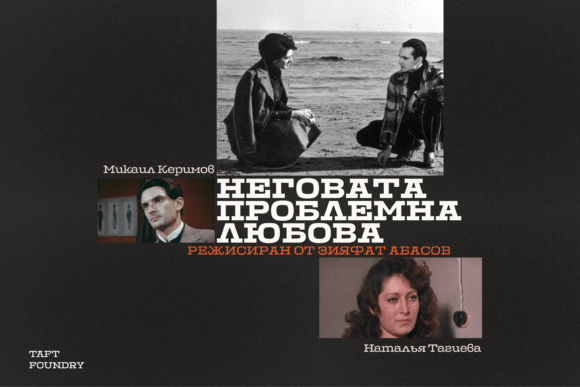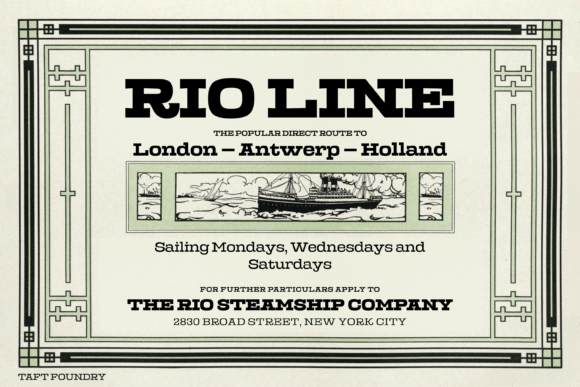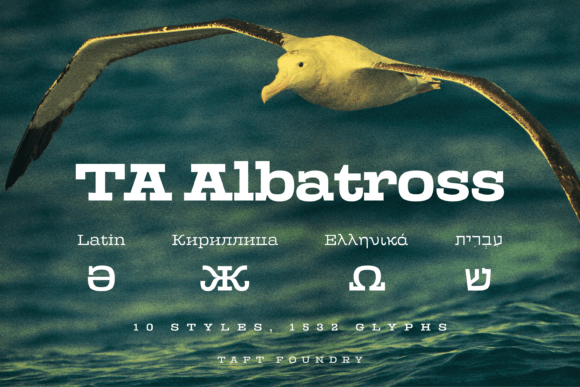
Ta Albatross Font Family
TA Albatross Font is a fresh and versatile serif font that combines both traditional and modern styles. TAAlbatross is an ideal choice for posters, book covers, articles, and various other design projects.
The design of the TA Albatross font is inspired by the freedom of the albatross bird soaring over open seas. Each letter in the font reflects the balance and grandeur of the albatross in flight. By blending classic serif elements with a modern aesthetic, the font strikes a balance between gothic and humanist styles. Its simple yet expressive style ensures that text is easily readable while also being more captivating.
TA Albatross also offers various alternative style options to meet different design requirements. These alternatives give text and headings a more personalized and distinctive appearance, making your designs unique and unparalleled.